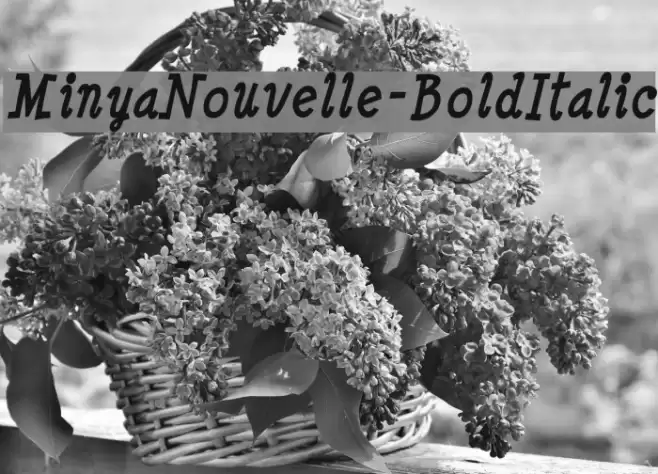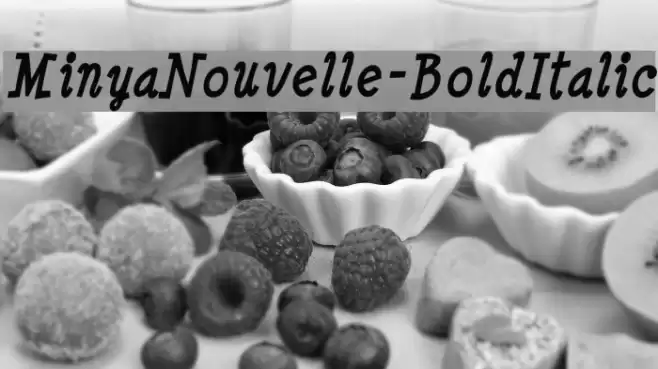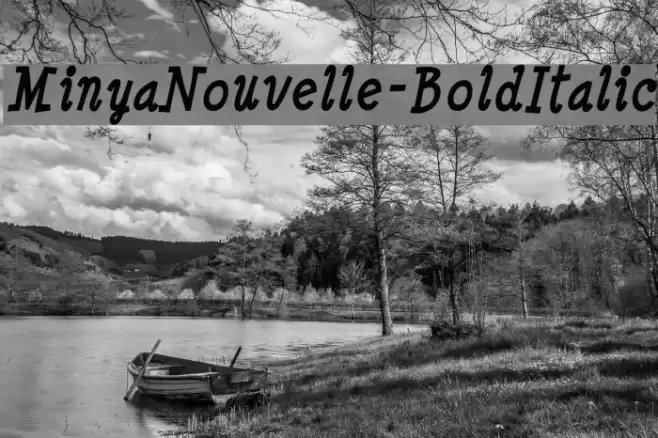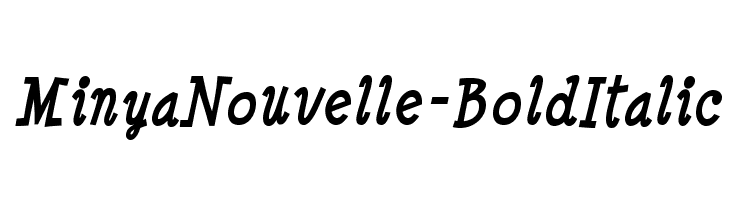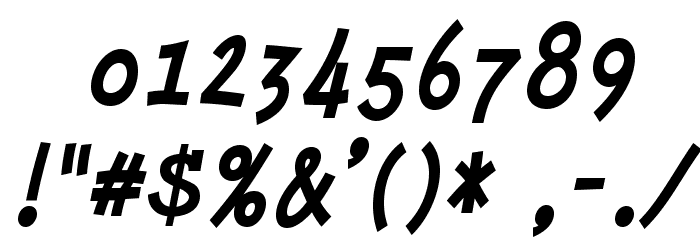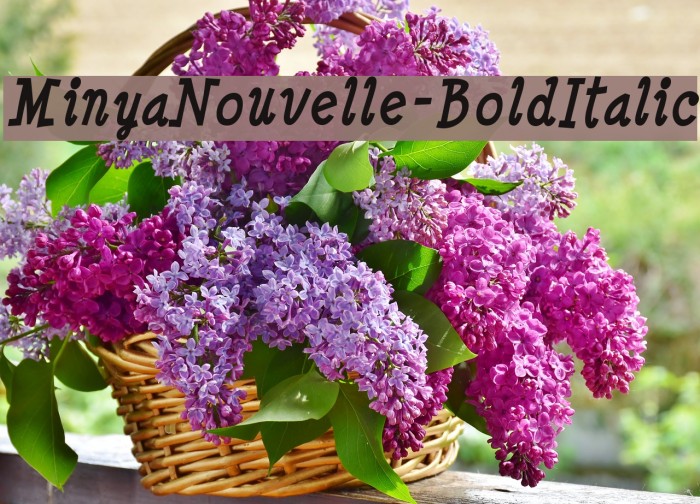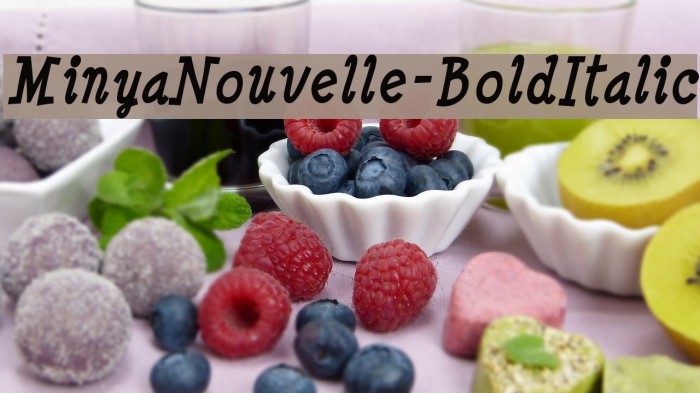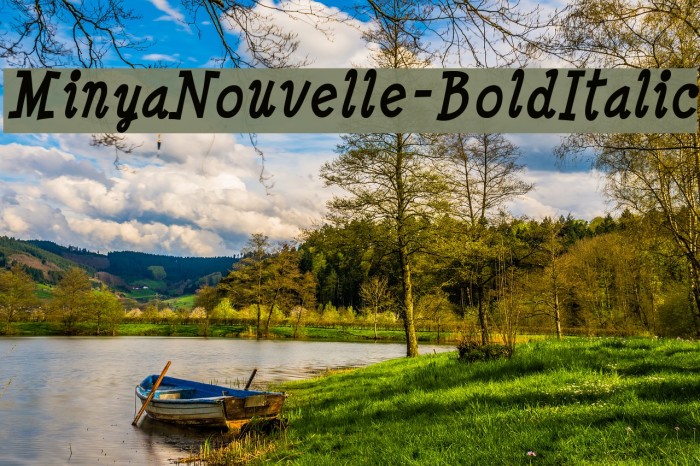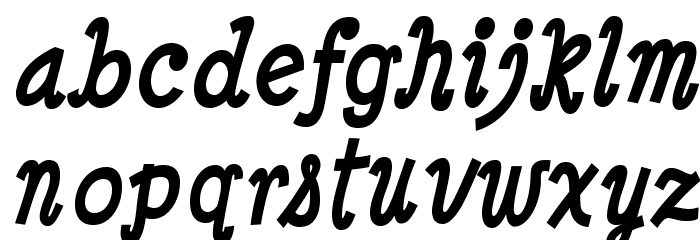
MinyaNouvelle-BoldItalic Font
MinyaNouvelle-BoldItalic Description
This font features a bold and italicized style, combining a sense of elegance with a touch of modern flair. The characters are slightly slanted, adding a dynamic and energetic feel to the text. The strokes are thick and consistent, providing a strong visual impact. The uppercase letters are tall and commanding, while the lowercase letters maintain a smooth and flowing appearance. The numerals are clear and bold, ensuring readability. Special characters are designed with the same boldness and slant, maintaining uniformity across the font.
A bold, italicized font with a modern and dynamic style from Uncategorized fonts.